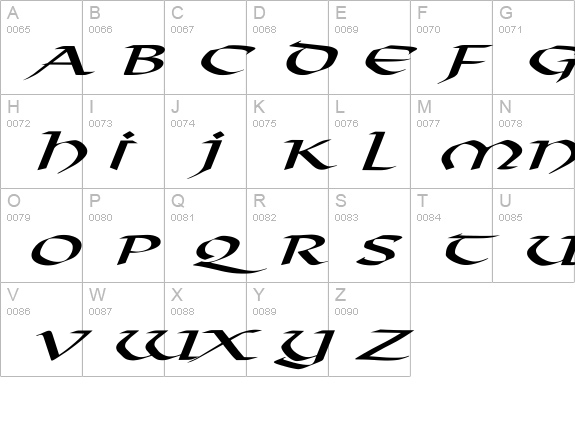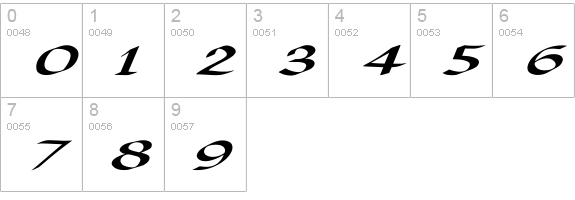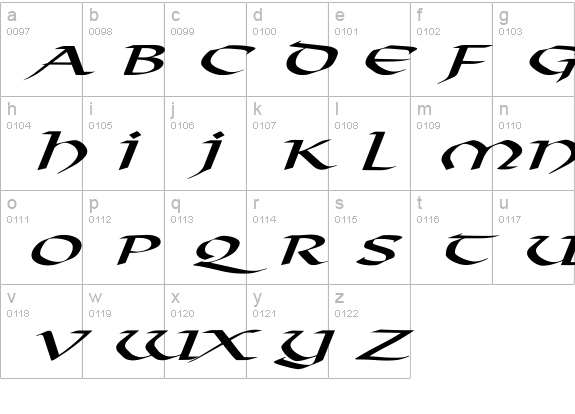
Viking-Normal Ex Italic Font Details
Viking-Normal Ex Italic is the standard, neutral, italic variant in the Viking typeface family \xE2\x80\x94 well suited to general body text, paragraphs, and standard typographic work.
Viking-Normal Ex Italic is a unique and eye-catching font that adds a touch of adventure and boldness to any project. With its strong and dynamic letterforms, this font captures the spirit of the fearless Vikings, exuding power and strength. The Italic style of Viking-Normal Ex Italic font adds an elegant and sophisticated touch, making it perfect for headings, logos, and branding materials. The slanted letters create a sense of movement and energy, making your text come alive on the page. This font is freely available to download at FontsMarket.com, offering you the opportunity to enhance your designs without any cost. With its wide range of characters and extensive language support, Viking-Normal Ex Italic font is suitable for various design projects, whether it's digital or print. Whether you're working on a historical project, a game design, or simply want to add a touch of uniqueness to your personal creations, Viking-Normal Ex Italic font is the perfect choice. Its bold, yet elegant style will leave a lasting impression on your audience, while the Italic variation adds a touch of sophistication. Embrace the spirit of the Vikings and captivate your audience with Viking-Normal Ex Italic font. Download it for free at FontsMarket.com and let your creativity soar.